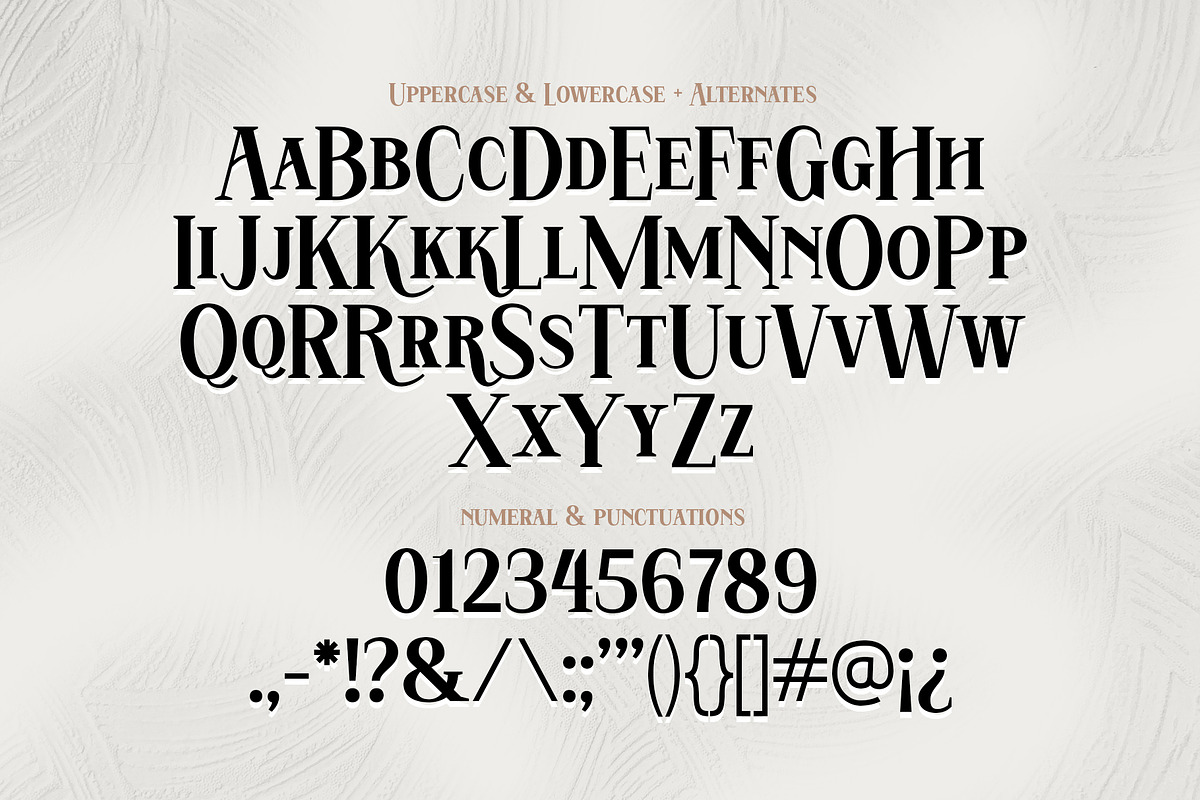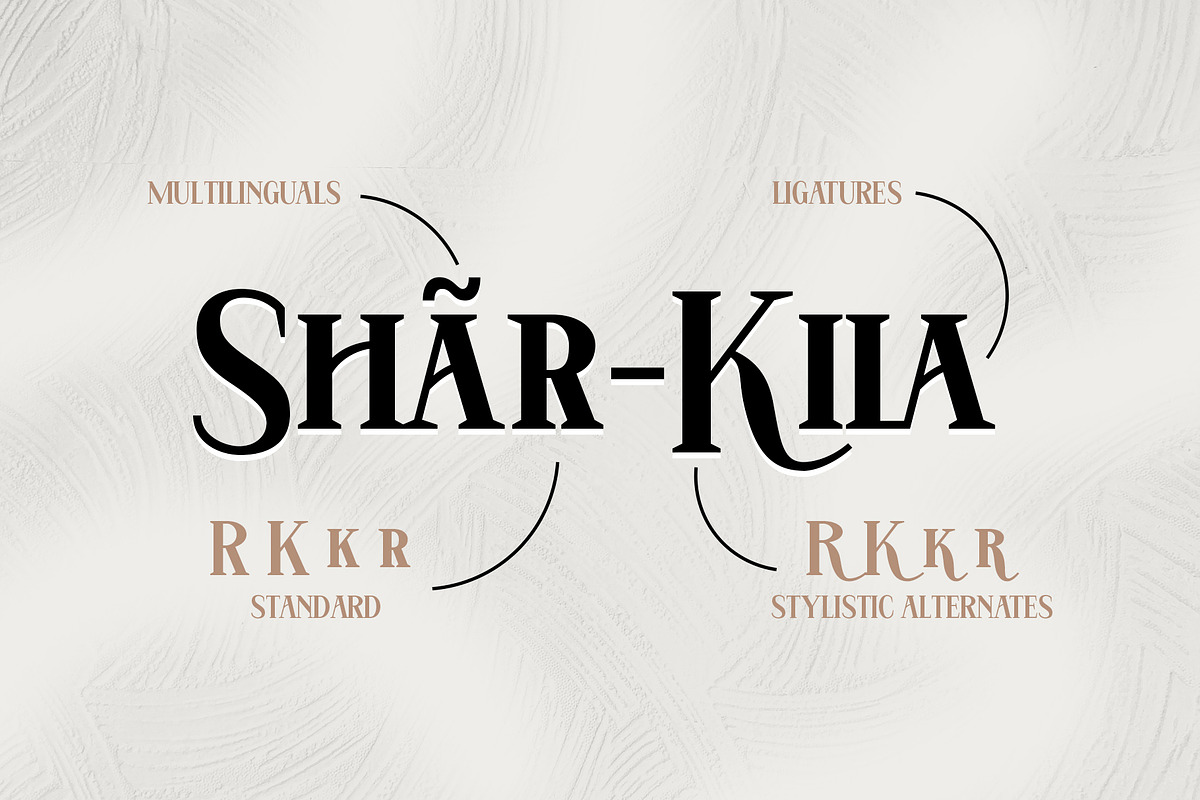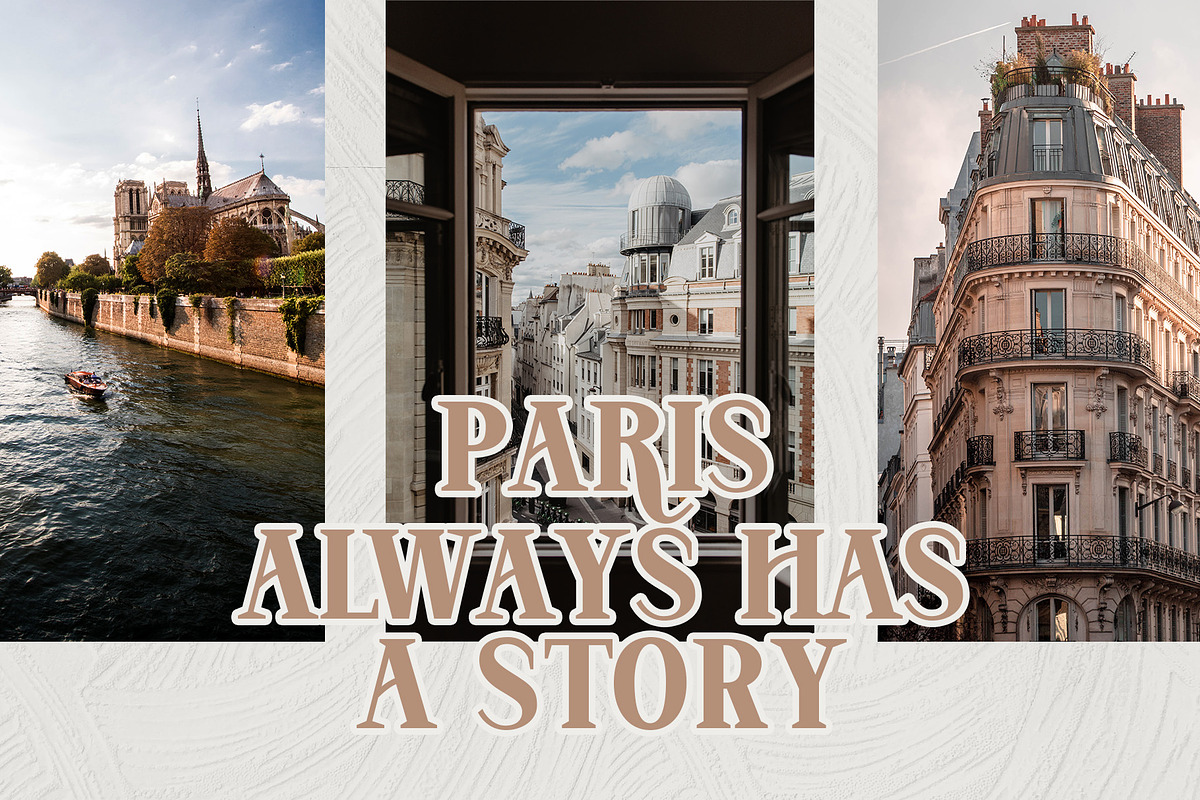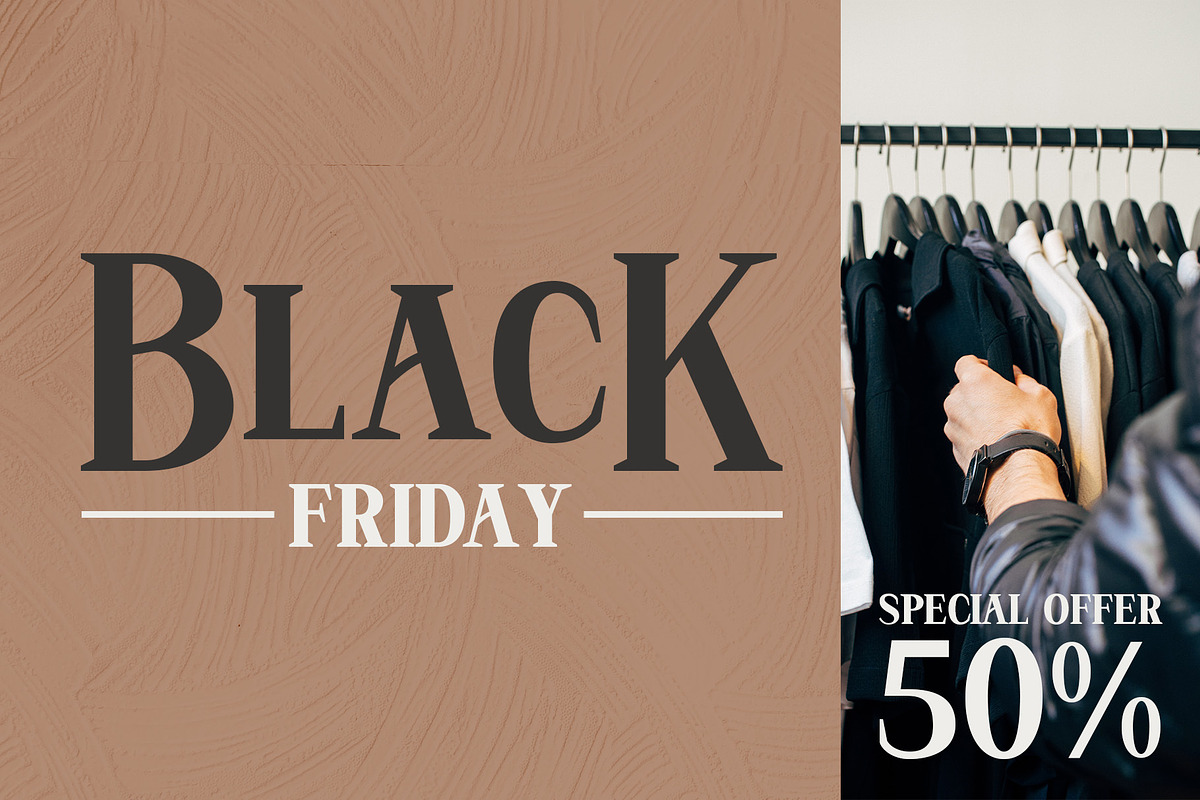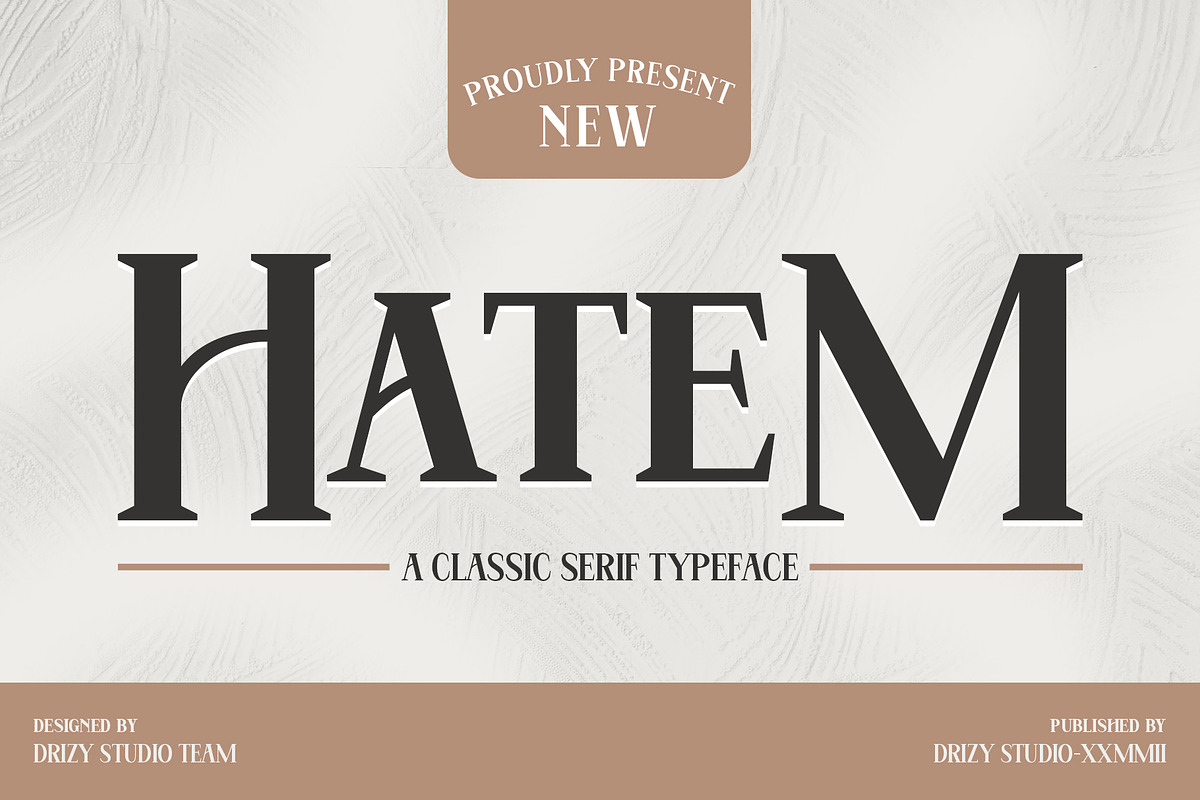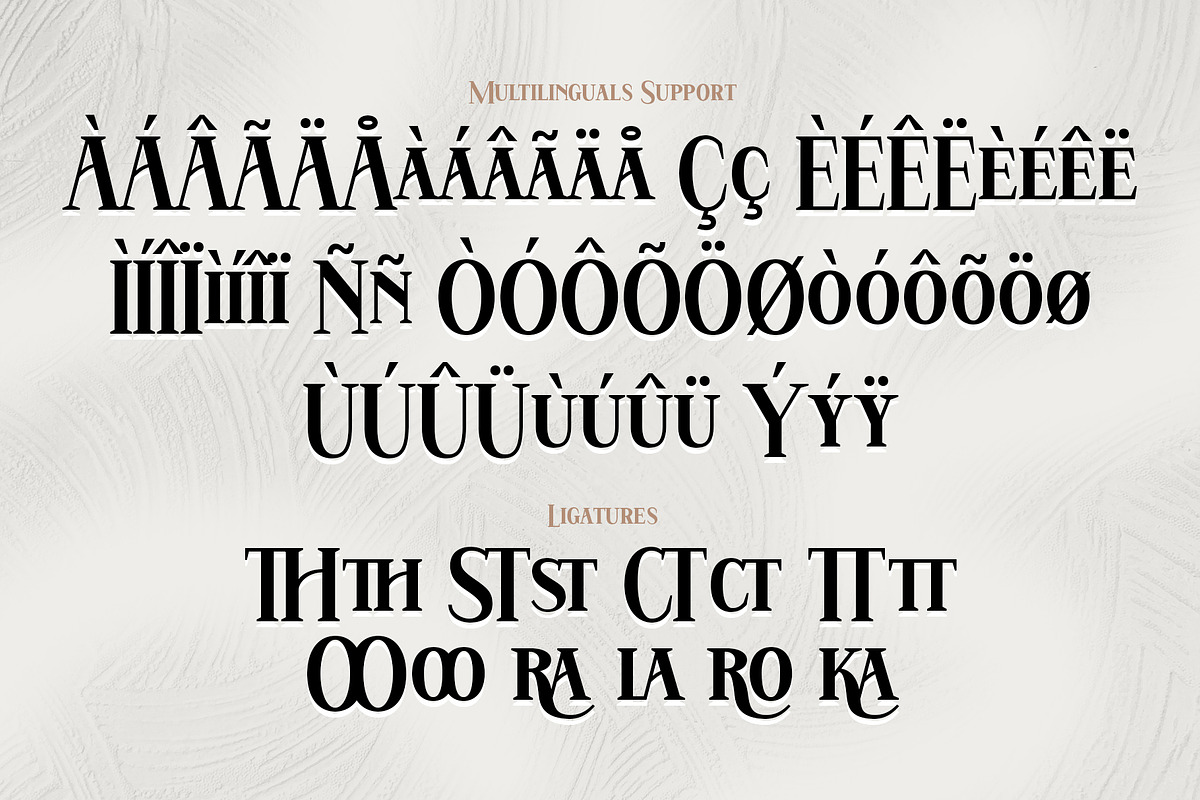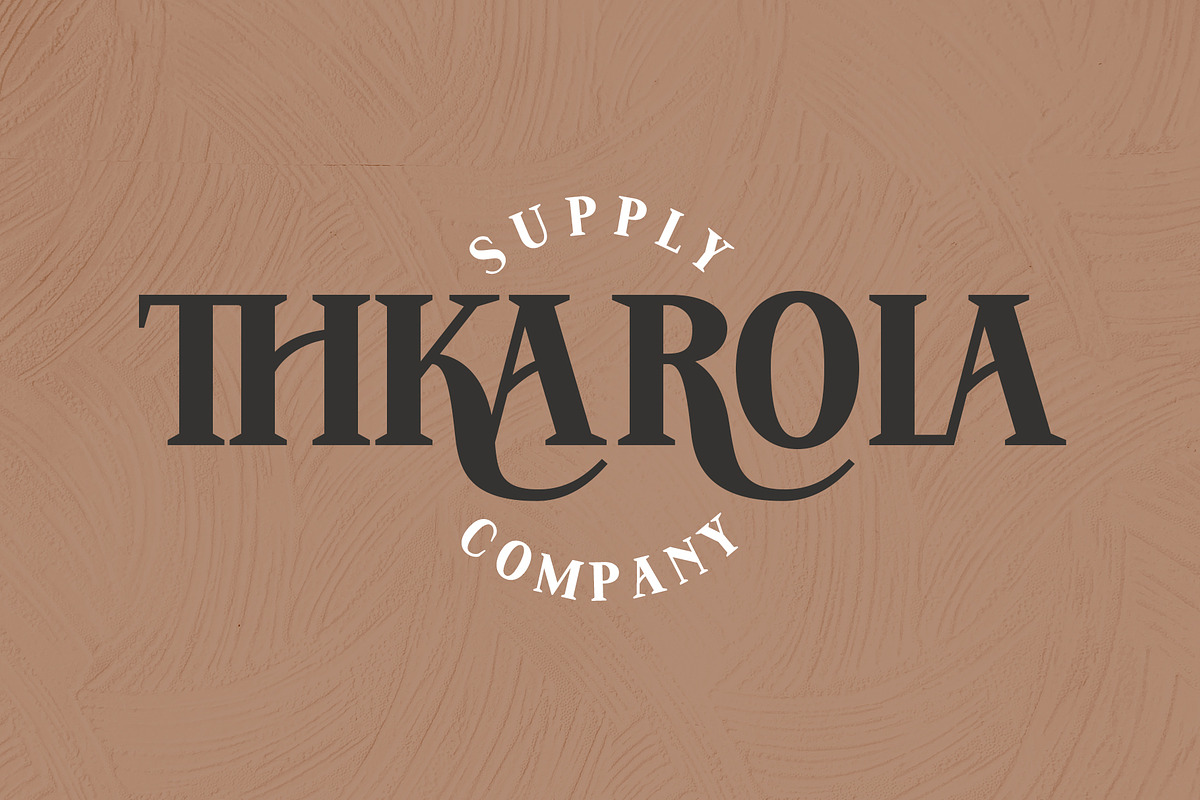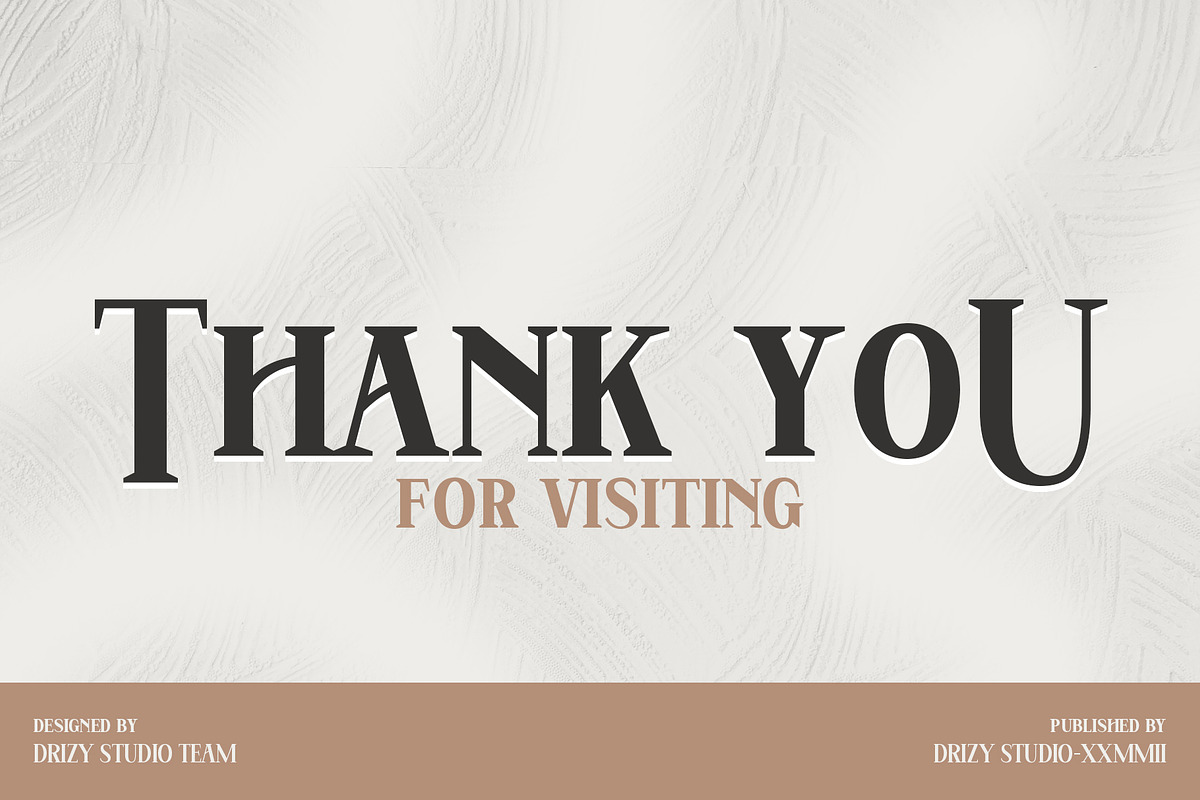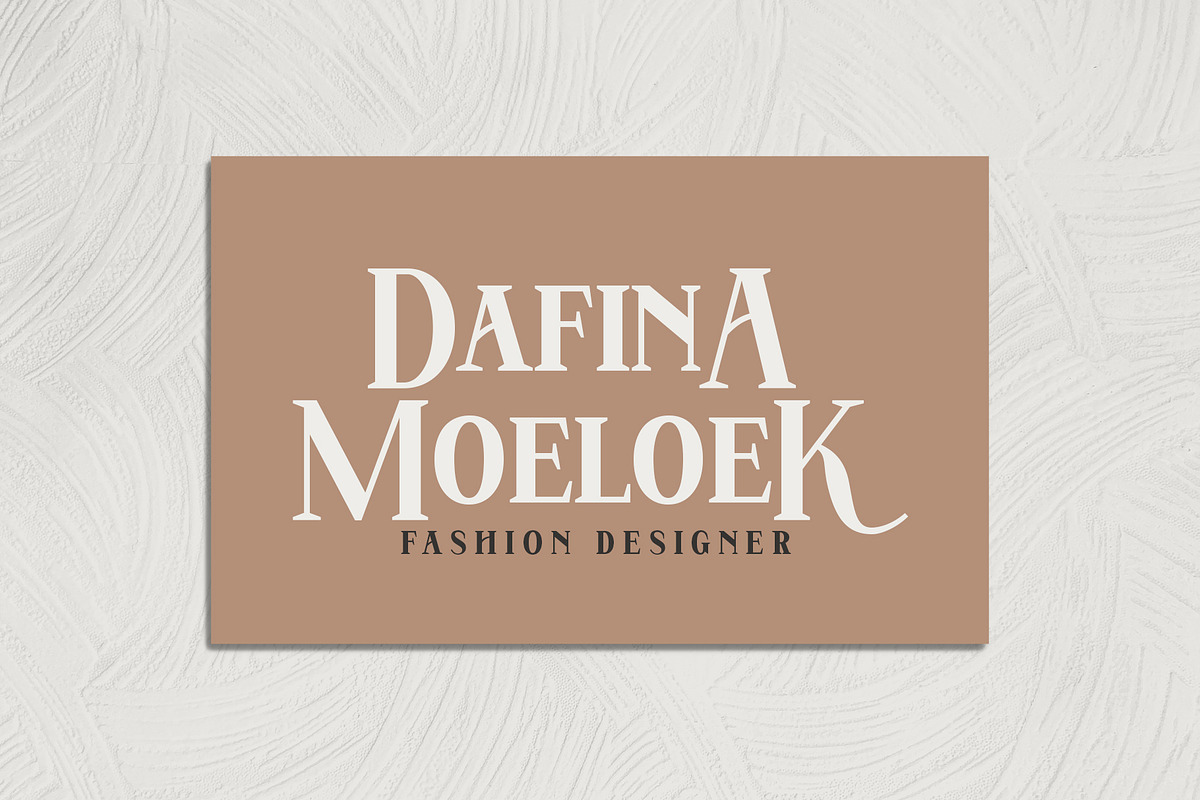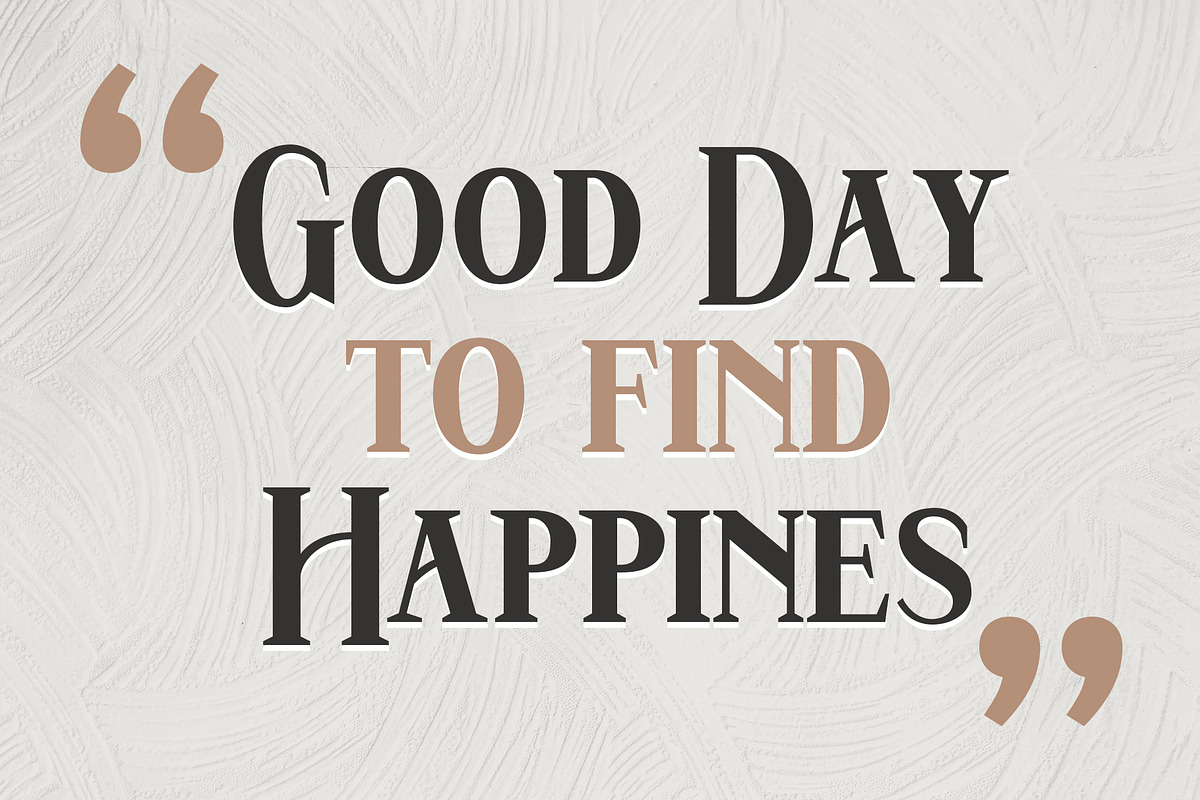
Hatem
Hatem is a Classic Serif Typeface Font from Drizy studio. Offering all the basic styles you will need for a successful project.
Hatem Features:
Uppercase & Lowercase Numeral & Punctuation Multilingual Ligatures